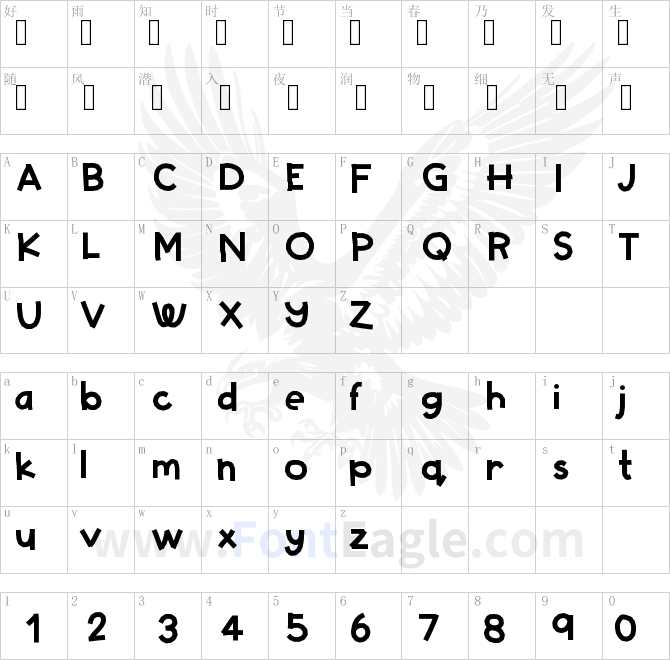
HelloStarbucks is a great font, widely used in graphic design, single-page menu design, poster design and other fields, and is deeply loved by designers.HelloStarbucks download.